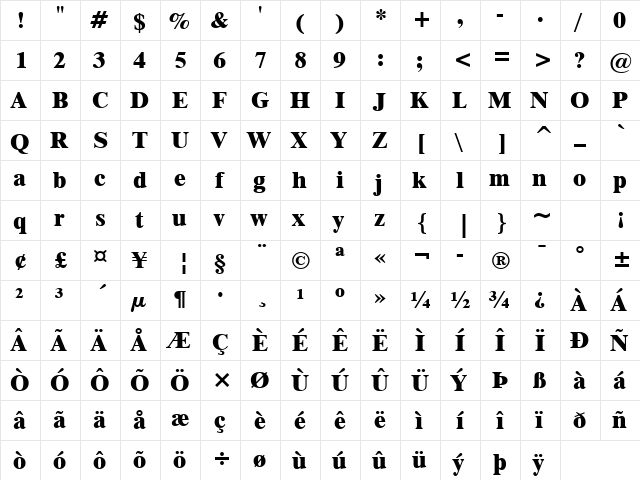
Dutch801 XBd BT Extra Bold Font Preview
Dutch801 XBd BT Extra Bold
Design Context for Dutch801 XBd BT Typeface
Dutch801 XBd BT takes a measured approach to typography — its balanced proportions and neutral character make it a reliable workhorse for both digital and print work. Its bold stroke weight gives it real presence on the page.